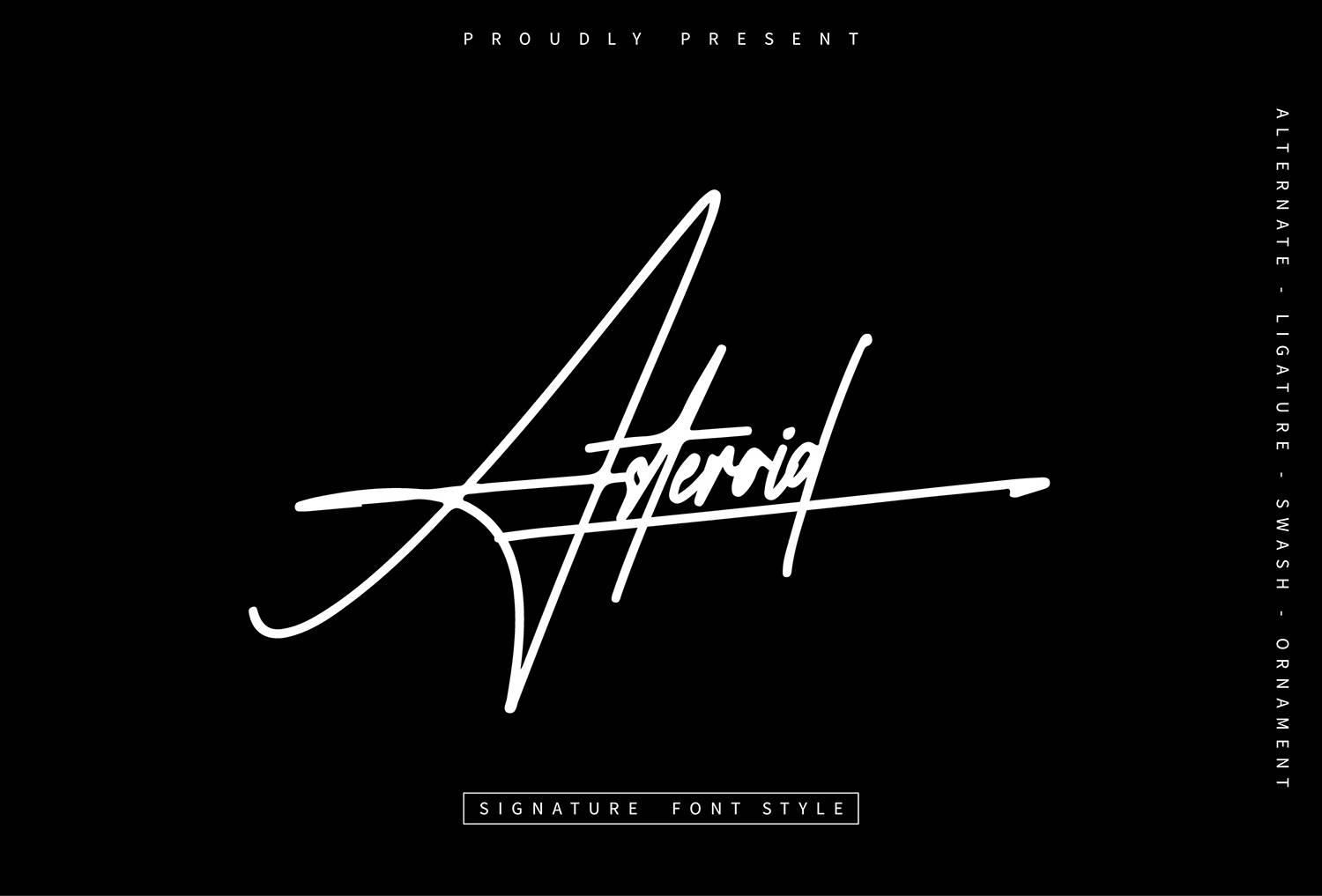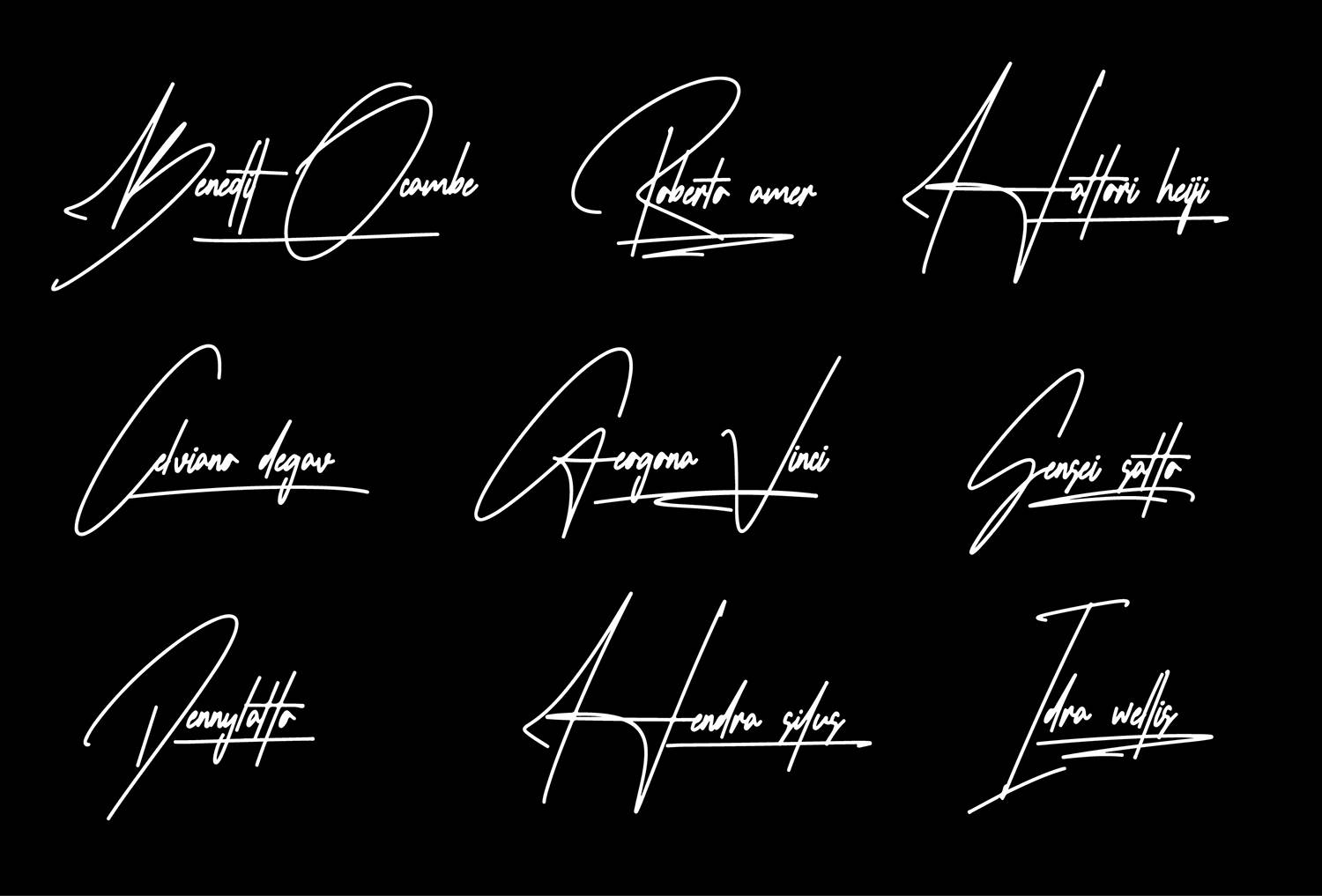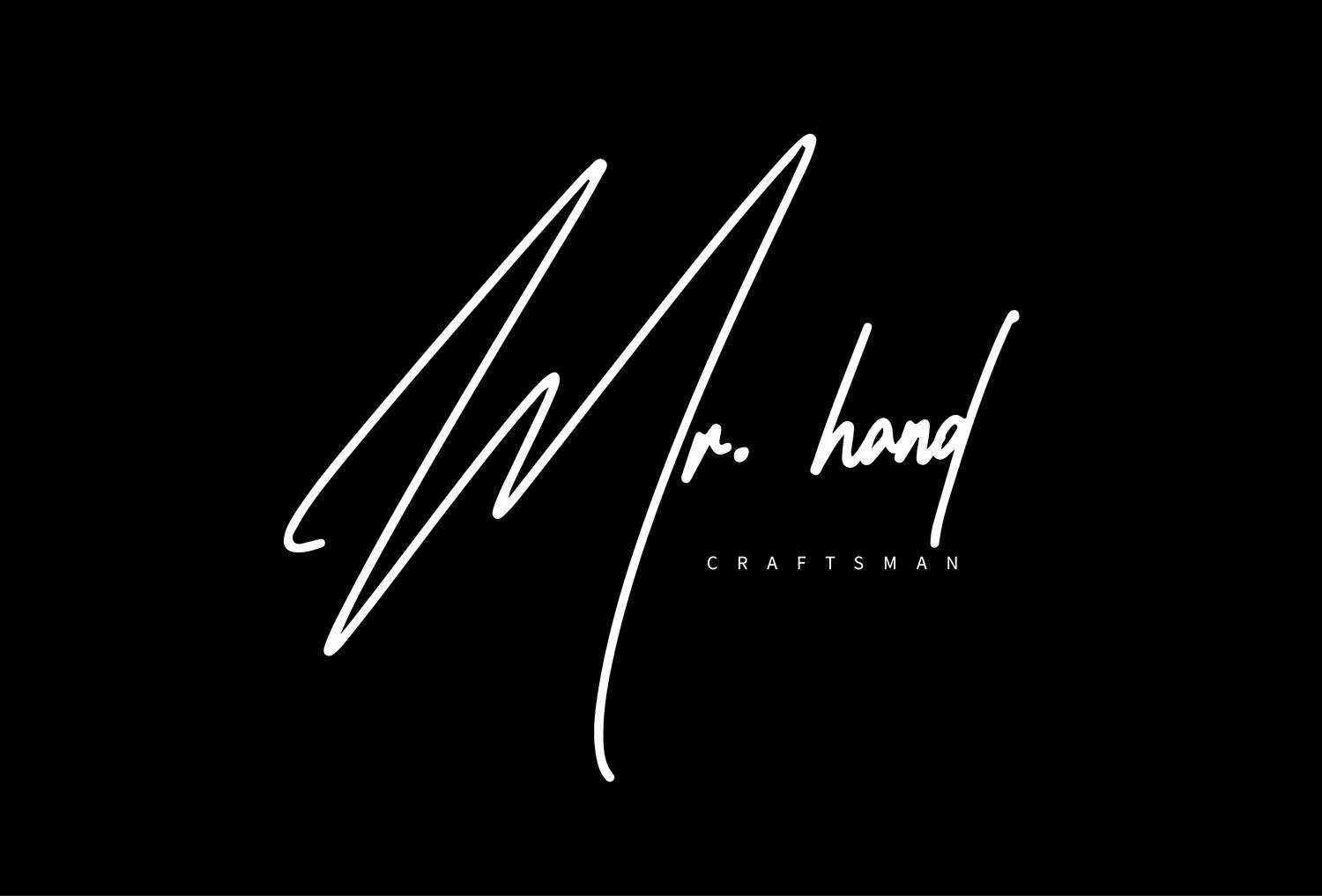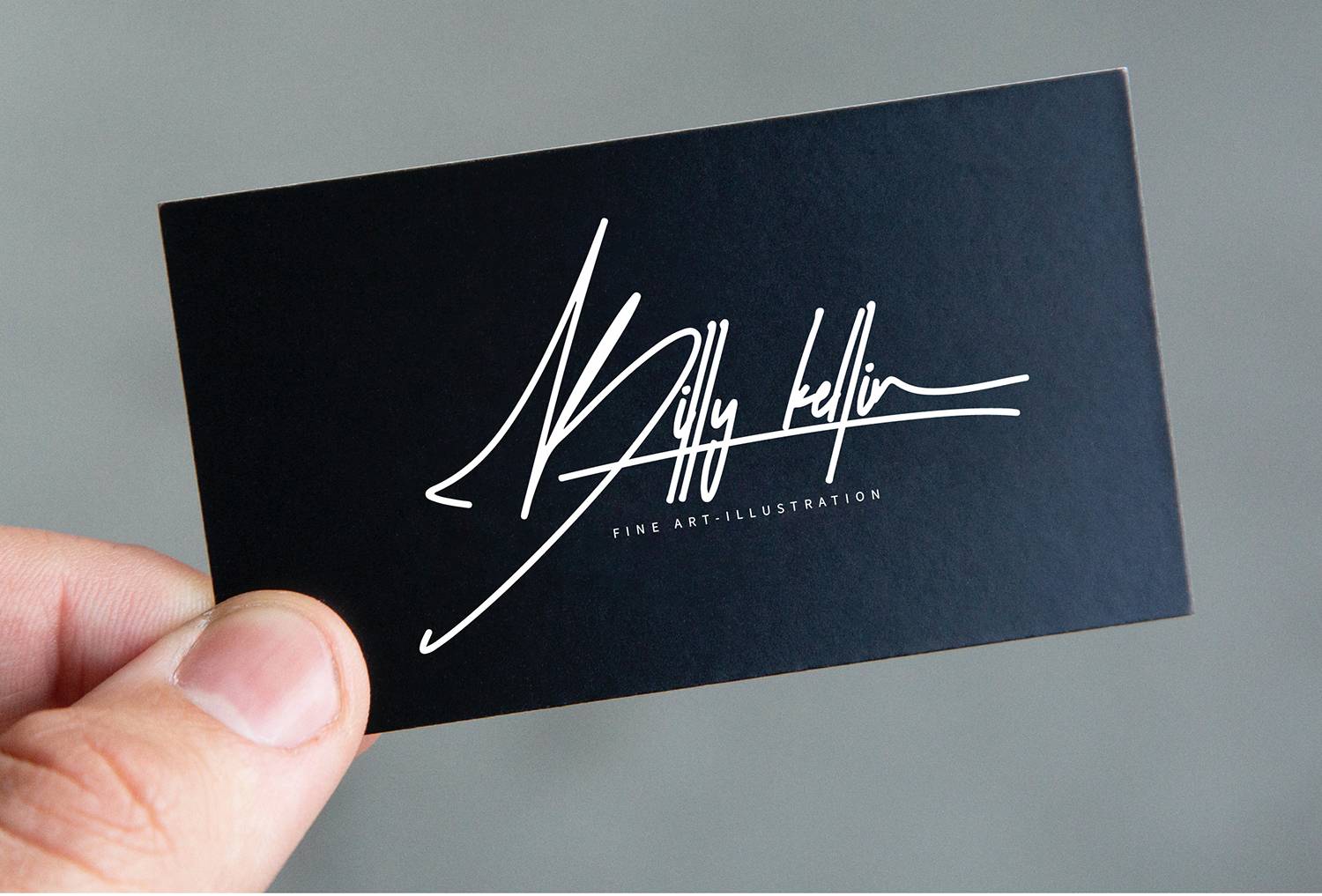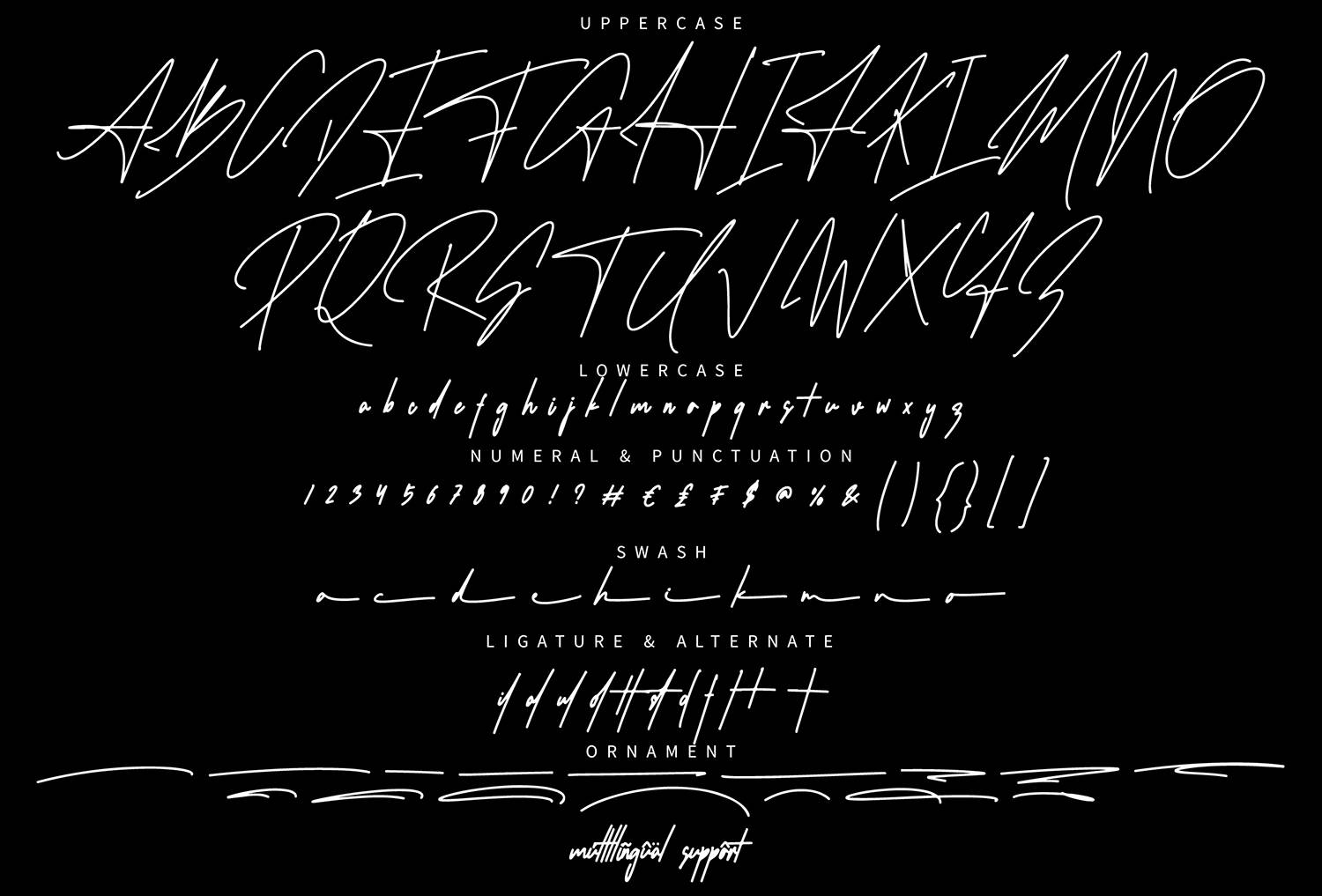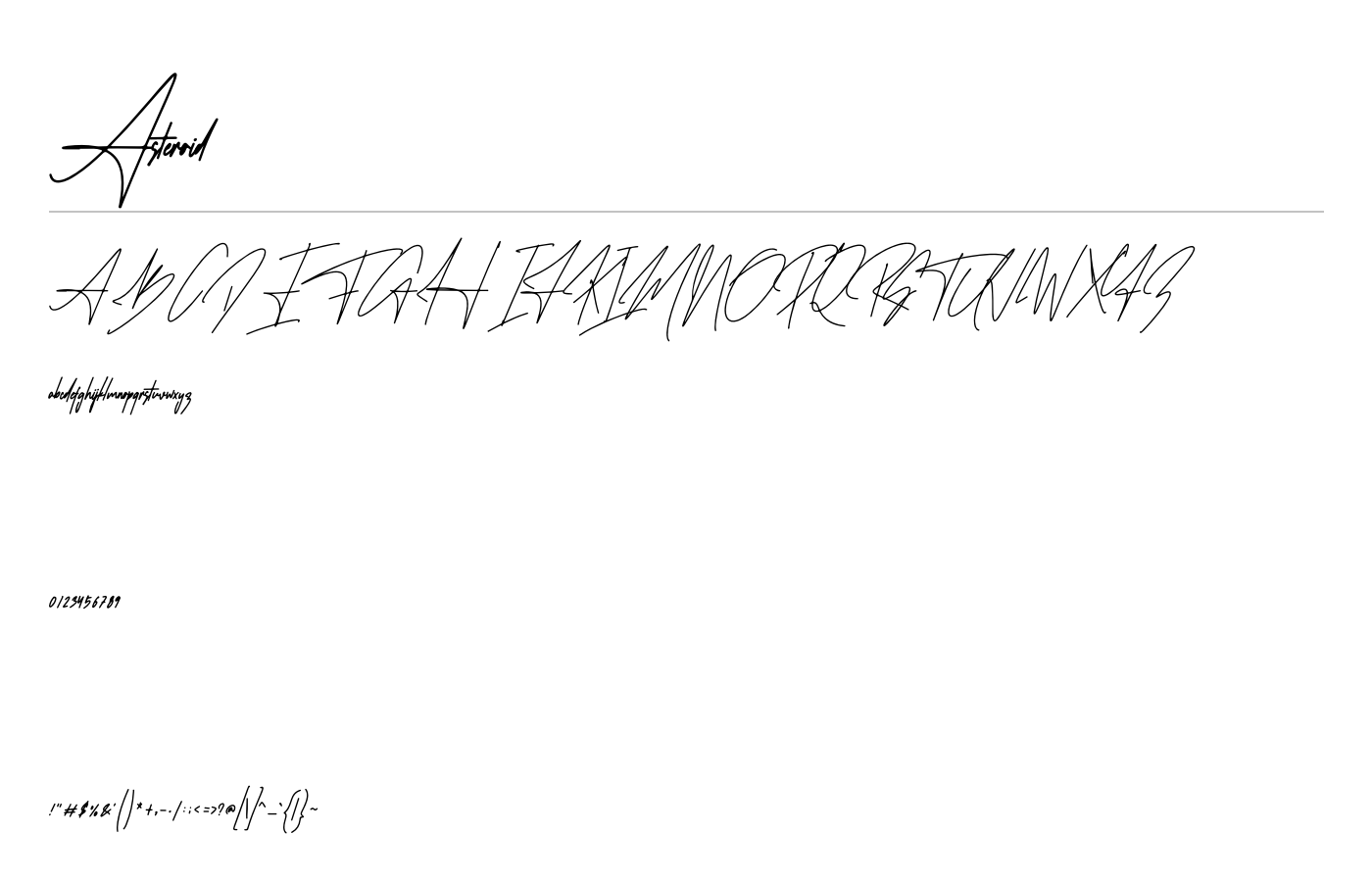
Asteroid is a stylish, ultra-thin script font with an energetic and edgy handwritten feel. Its tall, narrow letterforms and sharp, flowing strokes give it a modern, dynamic appearance perfect for creative branding, fashion logos, and artistic projects seeking a unique, expressive touch. This font works best in large sizes where its fine details can shine, adding a sophisticated yet spontaneous vibe.
Asteroid Font
About Asteroid Font
| Font family | Asteroid Font |
| Designer | Akhmad riyan danuarta |